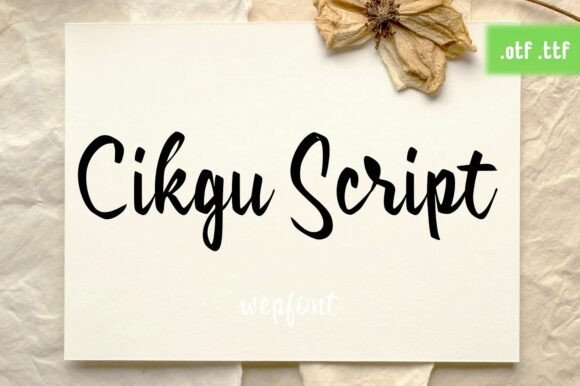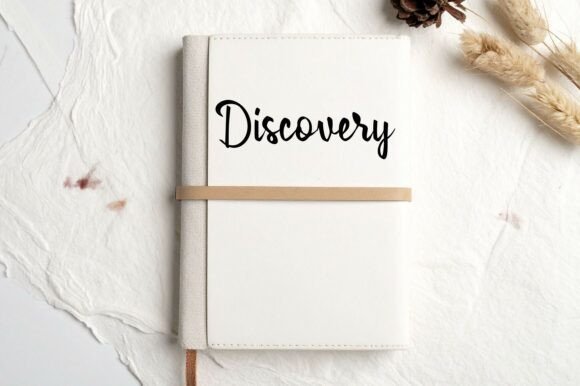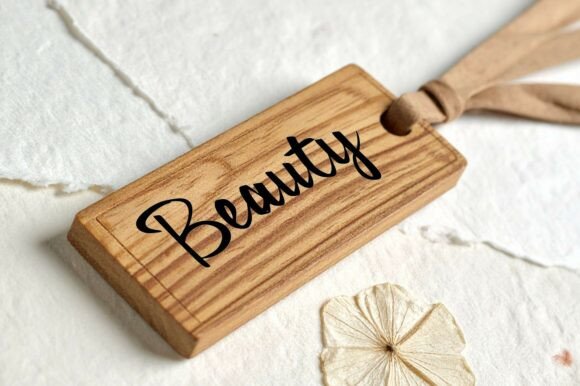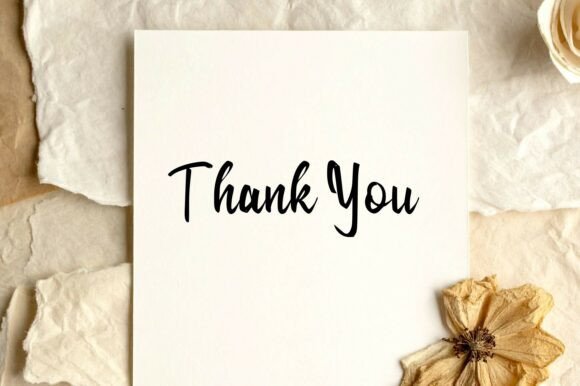
Embracing the Cozy Charm of Handcrafted Design
As you sit down to plan a new project, a blank sheet of paper stares back at you, waiting for the spark that will bring your vision to life. And then, it happens – the perfect font appears, transporting you to a world of comfort and familiarity. This is where the magic of the Cikgu Script Font comes in, infusing your designs with a relaxed, unique charm that’s hard to resist.
Handcrafted with love and care, the Cikgu Script Font is more than just a typeface – it’s a way to connect with your audience on a deeper level. Its distinctive, fluctuating baseline and uninhibited strokes evoke the feeling of a cherished journal entry or heartfelt letter, making it the perfect choice for designers looking to add a touch of authenticity to their work.
Cikgu Script Font Key Features
- Unique Characteristics: The Cikgu Script Font features a unique, hand-drawn design with a mix of traditional and modern elements, giving it a distinctive and eye-catching look.
Cikgu Script Font Review
Overall, I think the Cikgu Script Font is a great choice for those looking for a unique and elegant script font. Here are some things that work well: ✨
- Beautiful and intricate design: The Cikgu Script Font features a beautiful and intricate design that is perfect for titles, headings, and other prominent text.
- High-quality glyphs: The font includes a wide range of glyphs, including Latin, Cyrillic, and Greek characters, making it a versatile choice for multilingual designs.
- Good legibility: Despite its script nature, the font is still relatively easy to read, especially at larger sizes.
However, there are a few limitations to keep in mind: ⚠️
- Limited font weights: The Cikgu Script Font only comes in a few font weights, which may limit its use in certain design contexts.
- May not be suitable for body text: Due to its script nature, the font may not be the best choice for large blocks of body text, as it can be tiring to read.
Overall, I would recommend the Cikgu Script Font to designers looking for a unique and elegant script font for titles, headings, and other prominent text. Just be sure to use it judiciously and in the right context.
Cikgu Script Font is commonly used for:
- Printed materials, such as business cards and brochures
Alex Brush is a beautiful, handwritten font perfect for creating a personal and emotional connection with your audience. It’s ideal for use in branding, packaging, and advertising materials. Alex Brush has a more elegant and refined feel compared to Cikgu Script Font, making it suitable for high-end or luxury brands.
Comparison: Alex Brush has a more polished and sophisticated look, whereas Cikgu Script Font has a more casual and playful feel.
Carolyna Pro is a modern, script font that’s perfect for creating a stylish and sophisticated look. It’s ideal for use in branding, advertising, and editorial materials. Carolyna Pro has a more dynamic and energetic feel compared to Cikgu Script Font, making it suitable for modern and trendy brands.